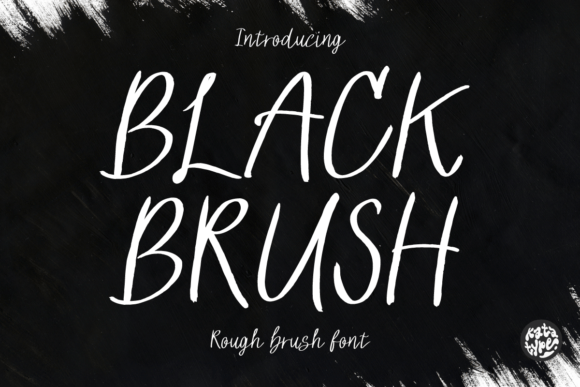
The Power of Imperfection: How Black Brush Font Can Elevate Your Designs
I still remember the time I was working on a project for a streetwear brand, trying to find the perfect font to capture their edgy vibe. I had scoured the internet, tried countless fonts, but nothing seemed to fit. That was until I stumbled upon Black Brush Font. Its rough, handwriting texture and jagged strokes instantly resonated with the brand’s aesthetic. I knew I had found the one! In this article, I’ll share with you why Black Brush Font is a game-changer for designers, crafters, and creative hobbyists looking to add a touch of raw, unpolished charm to their work.
An Honest Review: What I Love (and What’s Not So Perfect)
- ✅ Unique, handcrafted texture that adds depth and dimension to your designs
- ✅ Perfect for creating grunge, street-style, and urban designs
- ✅ Easy to use and pairs well with a variety of fonts
- ✅ Great for adding a touch of edginess to your work
The Not-So-Perfect Bits 🤔
- ⚠️ Some letters may appear a bit inconsistent or uneven, which can be a challenge for certain design projects
- ⚠️ Limited use in formal or traditional designs, as it may come across as too casual or rough
A Practical Guide: Using Black Brush Font in Your Favorite Design Tools
The Story Behind Black Brush Font
Black Brush Font was designed by a young, up-and-coming type designer who was inspired by the raw, edgy aesthetic of street art and graffiti. Growing up in an urban environment, the designer was fascinated by the way street artists used bold, expressive lettering to convey their message. With Black Brush Font, the designer aimed to capture the essence of this street art style and make it accessible to designers and creatives around the world.
| Font Name | Black Brush Font |
| Author | Katatype |
| What type of designs is Black Brush Font best suited for? | Grunge, street-style, urban designs, and any project that requires a raw, edgy feel. |
| Is Black Brush Font available in different weights or styles? | Currently, Black Brush Font is available in a single weight. However, the designer may release additional weights or styles in the future. |